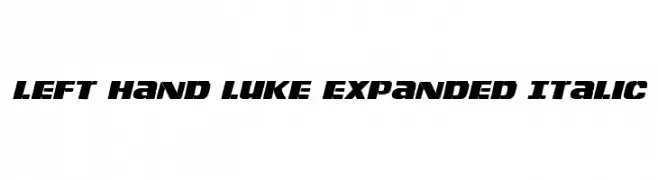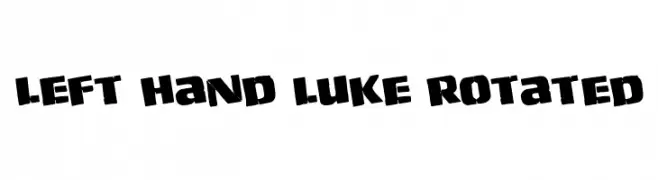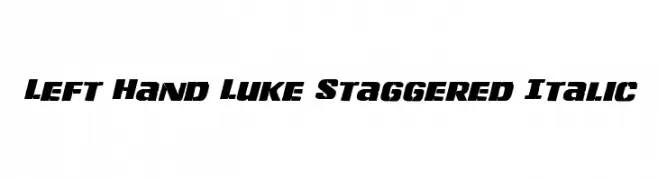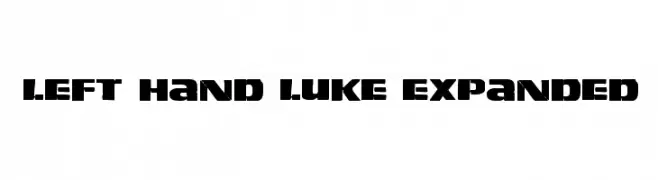
A bold, distressed font with a hand-drawn, textured appearance.
A bold, textured font with a hand-drawn, organic feel and playful, irregular edges.
A distressed, grunge-style font with a textured, decayed appearance.
A bold, stencil-like font with a rugged, dynamic style and slanted characters.
A bold, expanded, and italic font with a modern, rugged style.
A bold, distressed font with a rugged, stencil-like appearance.
A bold, 3D italic font with outlined characters and a modern, dynamic style.
A bold, italicized font with a dynamic and energetic style.
A bold, distressed stencil-like font with an industrial, rugged appearance.
A bold, condensed font with a rugged, industrial style.
A bold, 3D font with a shadow effect and rounded edges.
A bold, distressed stencil font with an industrial, rugged appearance.
A bold, staggered italic font with a dynamic and edgy style.
A bold, distressed font with an expanded width and rugged texture.
A bold, italic font with high contrast and a modern, dynamic style.
A bold, outlined font with a geometric and impactful style.
Bold, condensed, and italic with a dynamic, modern style.
A bold, outlined, italic font with a modern and dynamic style.
A playful, hand-drawn design featuring charming owl illustrations.
A playful balloon-themed font with rounded, bubbly characters.
A lively and expressive script font with fluid strokes and a handwritten style.
A bold, decorative font with vintage flair and ornate details.
A whimsical font with characters designed as cat faces, perfect for playful projects.
An ornate and decorative font with intricate patterns and a vintage flair.
An ornate, decorative font with intricate patterns and bold characters.